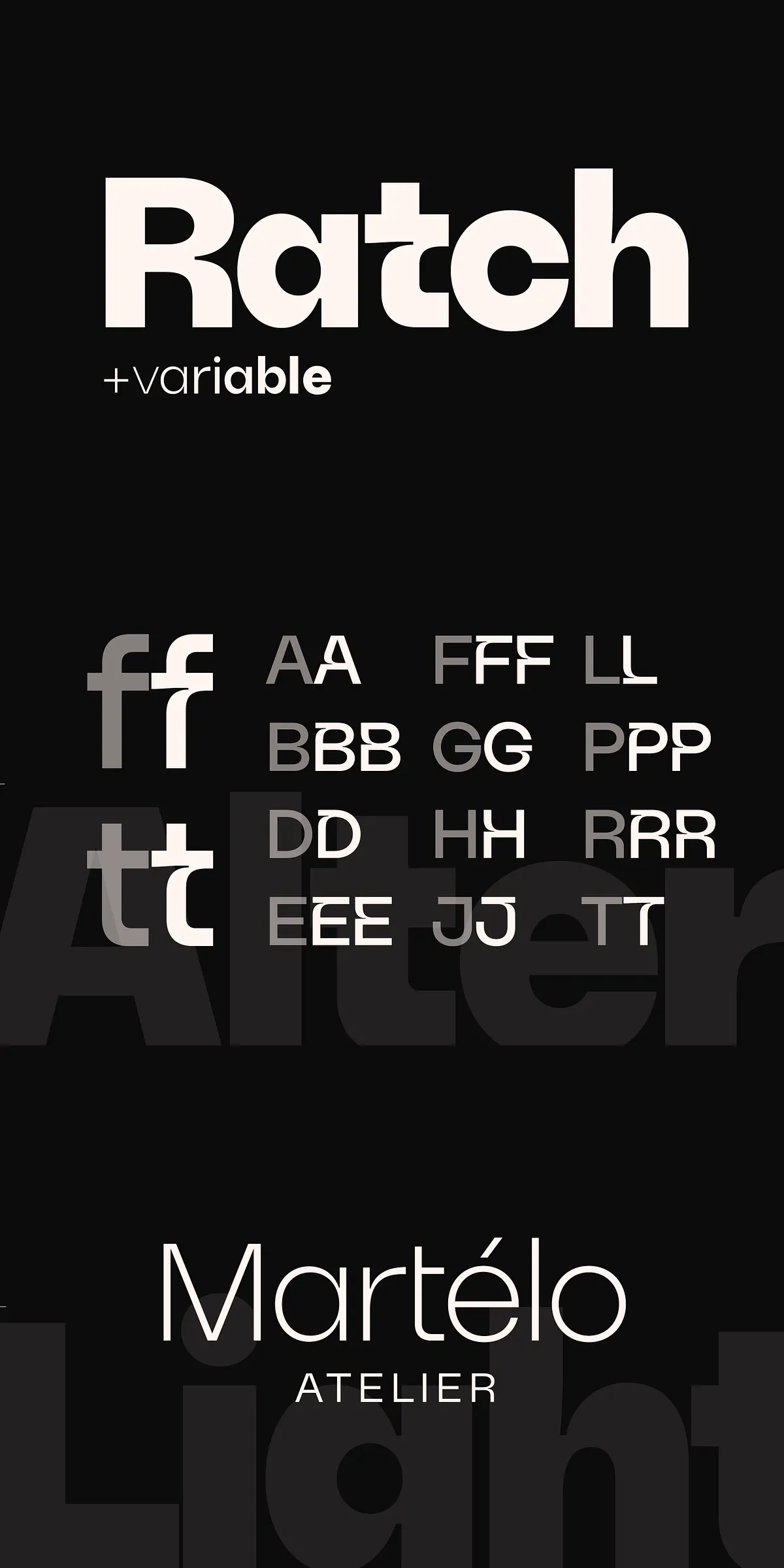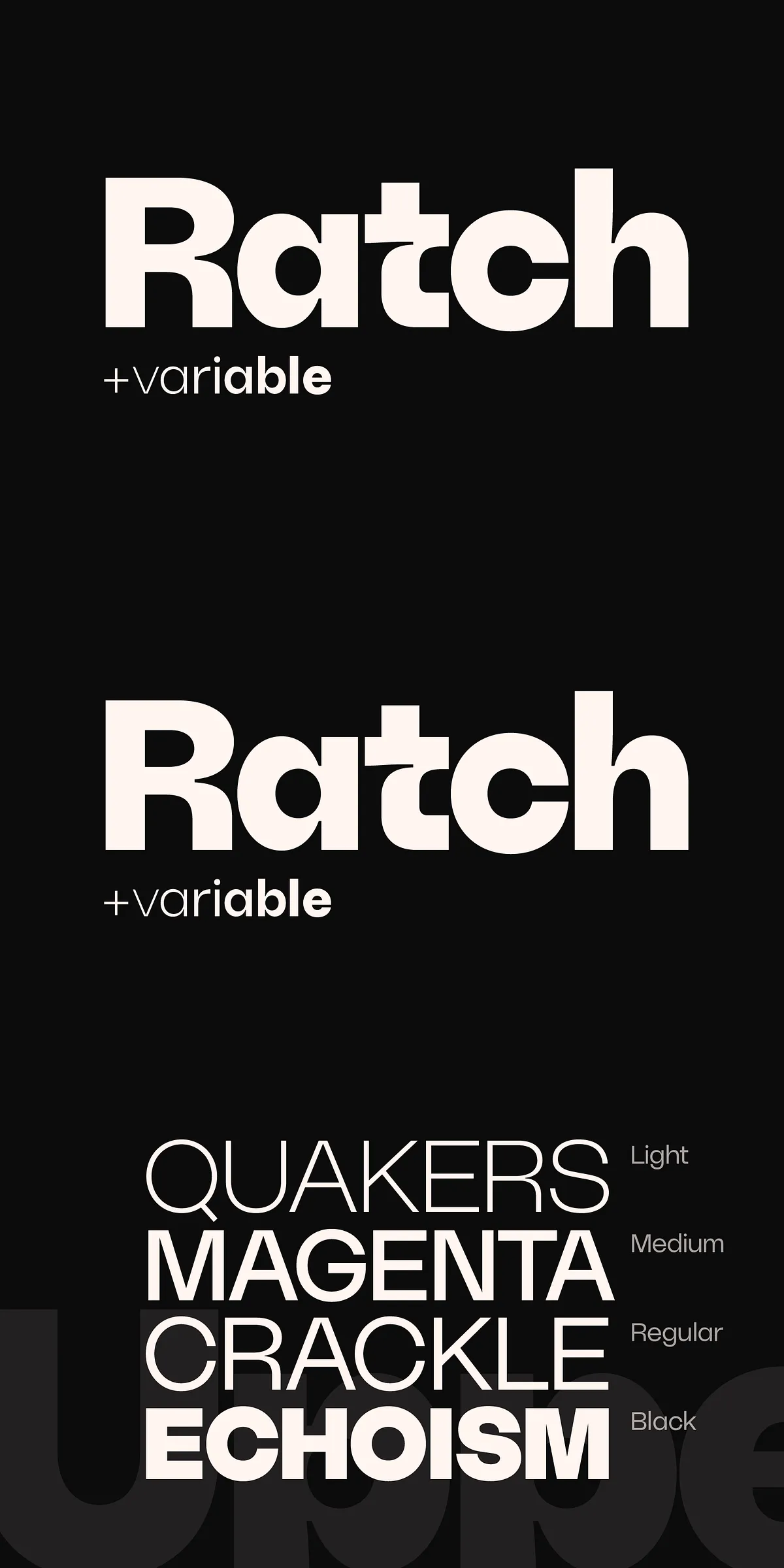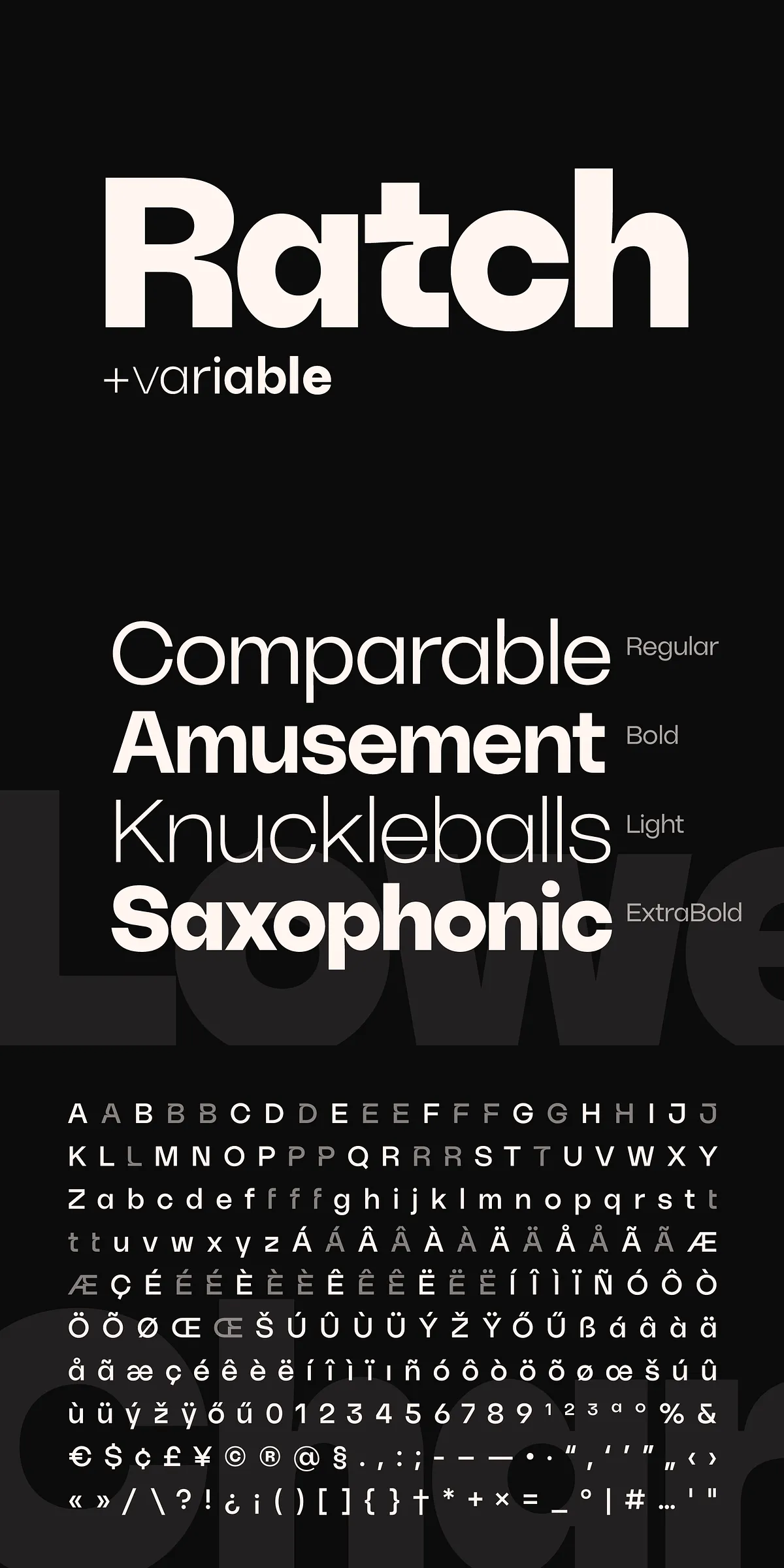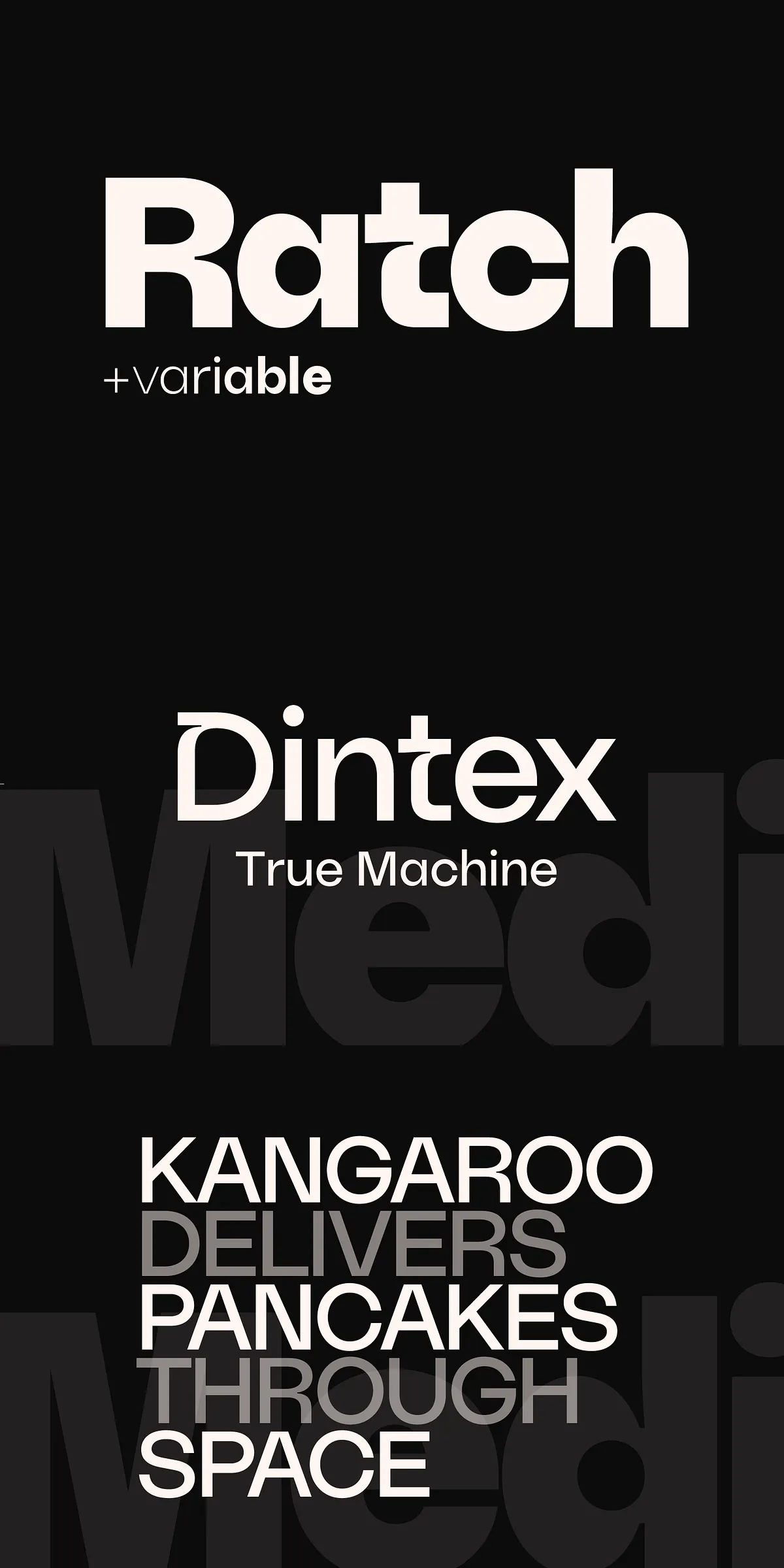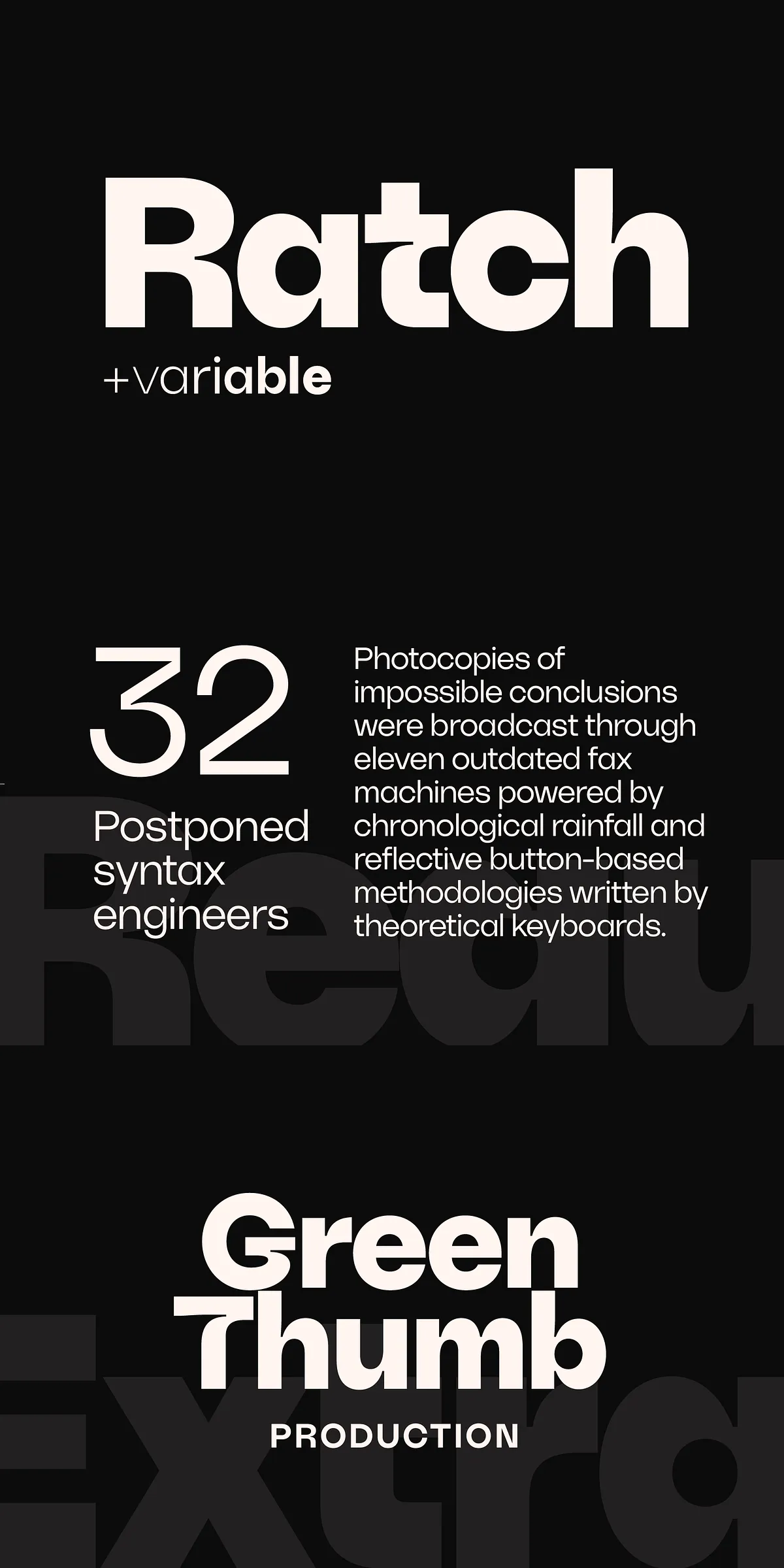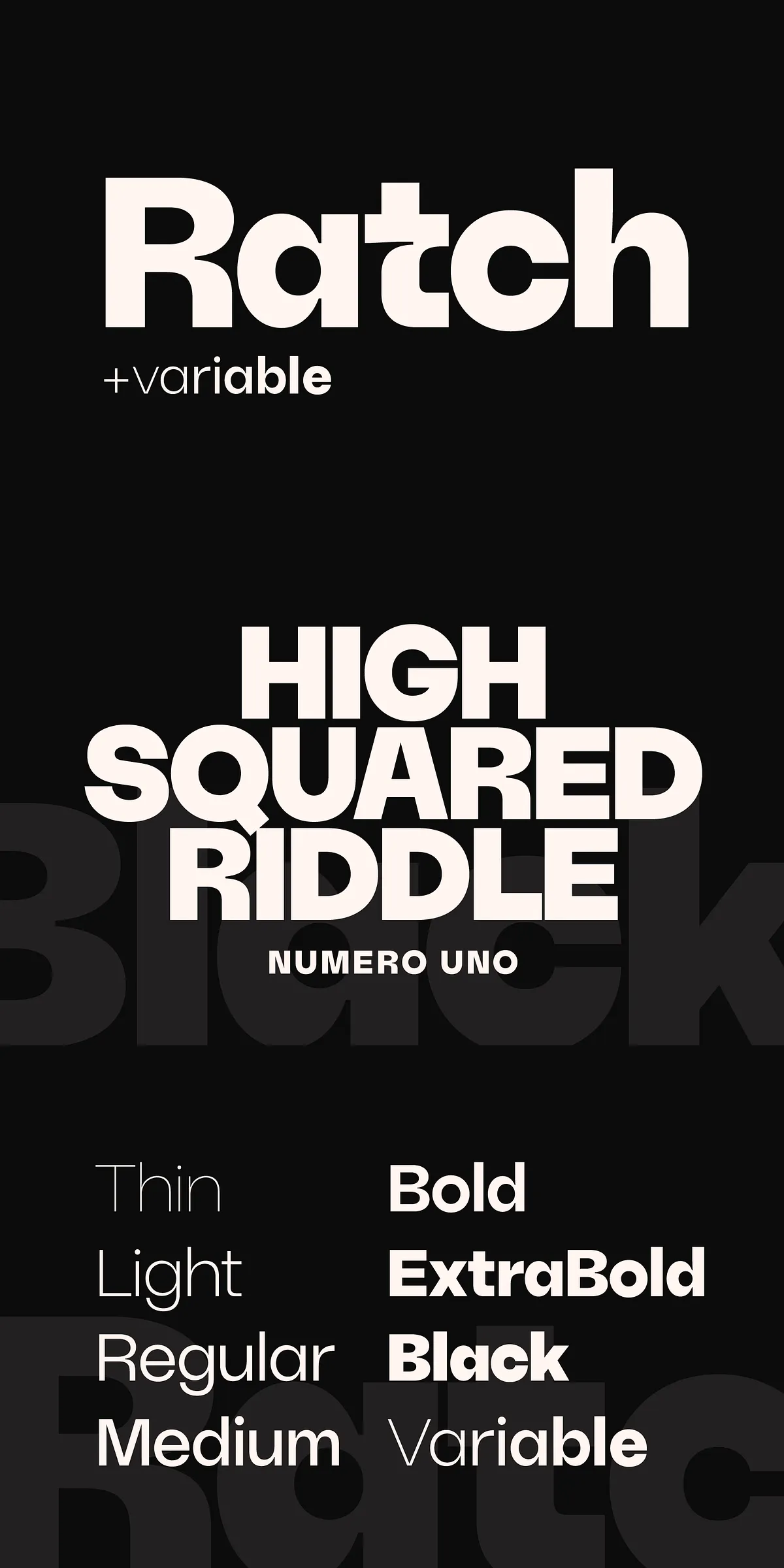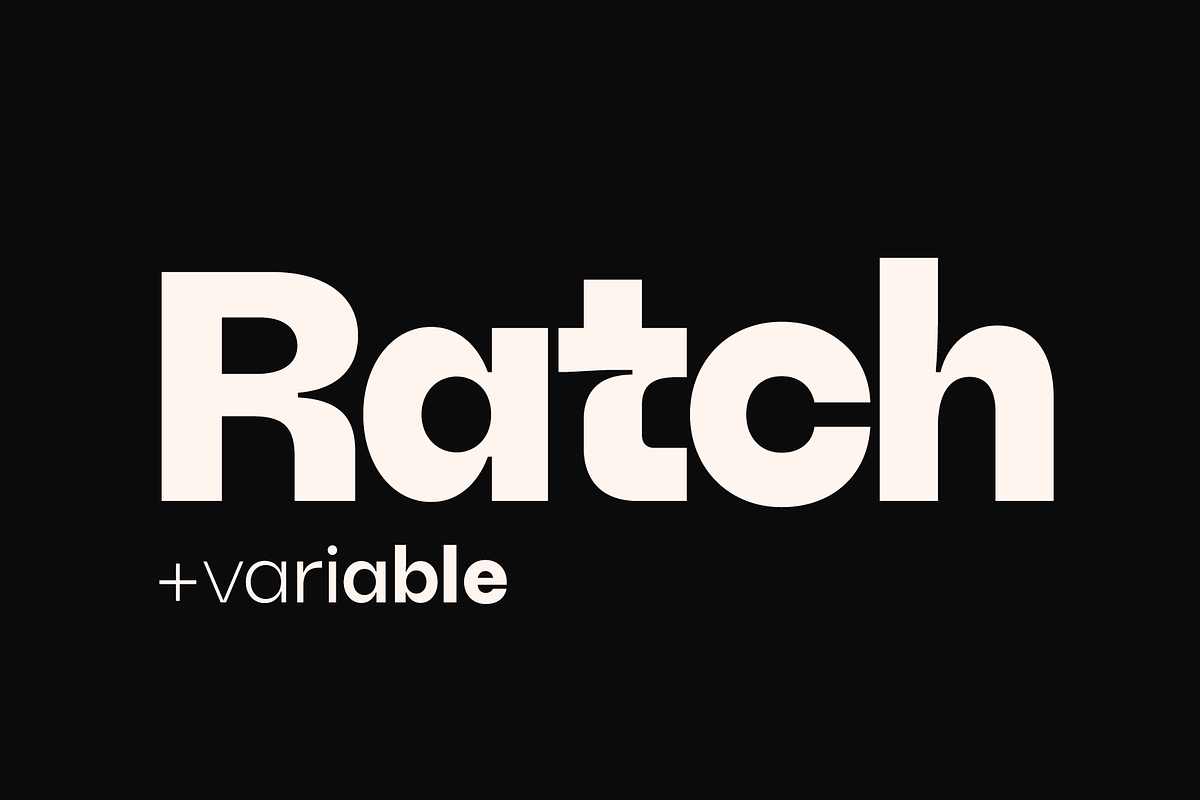
Ratch Font Family
Introducing Ratch — the typeface that redefines modern geometric design with precision, power, and creative flexibility. Built for the bold and the visionary, Ratch is a sleek, contemporary grotesk family that combines architectural rigor with expressive potential. Whether you’re crafting a global brand identity, designing a high-impact digital interface, or pushing the boundaries of editorial layout, Ratch gives you the tools to command attention and communicate with crystal clarity.
Engineered for Precision: 7 Weights & a Fully Functional Variable Font
Ratch doesn’t just offer variety — it offers control. The typeface family spans seven distinct weights, ranging from delicate Thin to commanding Black, empowering you to create nuanced visual hierarchies with effortless consistency. But the game-changer is the fully functional variable font. With a single file, you can dynamically interpolate between weights, adjust optical size, and fine-tune your design across any screen, device, or print output. No more juggling multiple font files — just one intelligent font that adapts to your project’s needs.
Optimize for Any Medium with Advanced Typography Features
Ratch is engineered for real-world design demands. Each style includes:
• Full Latin character set – Covering lowercase and uppercase letters for flawless language support.
• Stylistic alternates – A curated set of personalized letterforms designed to elevate individual glyphs. Swap out standard characters for more distinctive versions to inject individuality into your text.
• Basic multilingual support – Including accented characters essential for European and other languages.
• Extended character set – Covering numbers, punctuation, and special symbols for seamless integration into any project.
Bold, Clean, & Uncompromising: The Aesthetic of Modernity
Ratch thrives in environments where minimalism meets strength. Its clean, geometric lines reflect a sense of order and logic, while its subtle human touches — like slight stroke modulation and thoughtful spacing — prevent it from feeling cold or mechanical. This balance makes Ratch ideal for:
• High-impact branding – Make your logo stand out with crisp, confident typography that speaks of innovation and reliability.
• Modern web and UI design – Its variable font support ensures fast loading and perfect scalability across desktops, tablets, and mobile devices.
• Editorial layouts and publications – Use the weight spectrum to create dynamic headlines, pull quotes, and section breaks.
• Advertising and packaging – Convey professionalism and modernity with a design language that feels current and polished.
• Ratch Thin – For minimalist headlines and light body text.
• Ratch Light – Ideal for clean, readable interfaces.
• Ratch Regular – The foundation of the family, perfect for a wide range of uses.
• Ratch Medium – A balanced weight for emphasis without overpowering.
• Ratch Semi-Bold – Build visual hierarchy with stronger presence.
• Ratch Bold – Command attention with a powerful, authoritative look.
• Ratch Black – Make a final, unforgettable statement.
• Ratch Variable Font – Single file for seamless, continuous weight adjustment.
Design Tips: Unlocking Ratch’s Full Potential
• Use stylistic alternates purposefully – Replace standard letters like ‘a’ or ‘g’ with alternative forms to add visual rhythm and uniqueness.
• Leverage the variable font – Use CSS to create smooth transitions, hover effects, or responsive scaling based on screen size.
• Pair with a neutral sans-serif or minimalist display font – Let Ratch shine as the primary visual anchor.
• Limit colors – Use Ratch in monochrome or a single bold accent color to maximize its geometric impact.
Design with Confidence, Create with Purpose
Ratch isn’t just a font — it’s a design partner. With its technical sophistication, aesthetic clarity, and creative flexibility, it empowers you to build work that’s not only modern but also meaningful. Use Ratch to express bold ideas, tell powerful stories, and shape the future of your visual language. This is typography that doesn’t follow trends — it leads them.